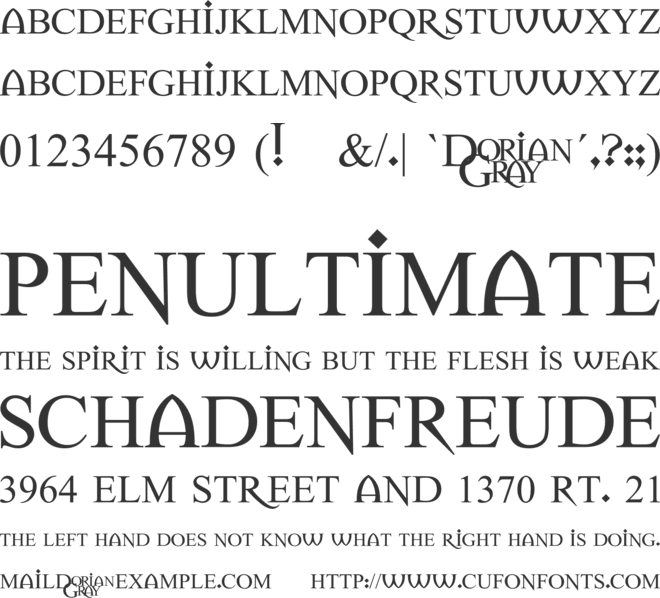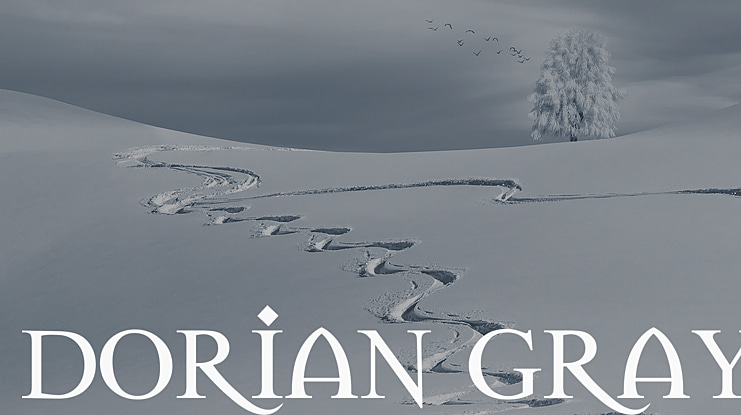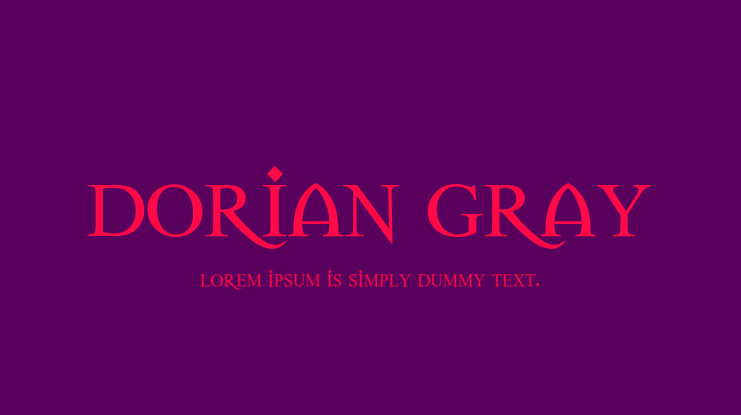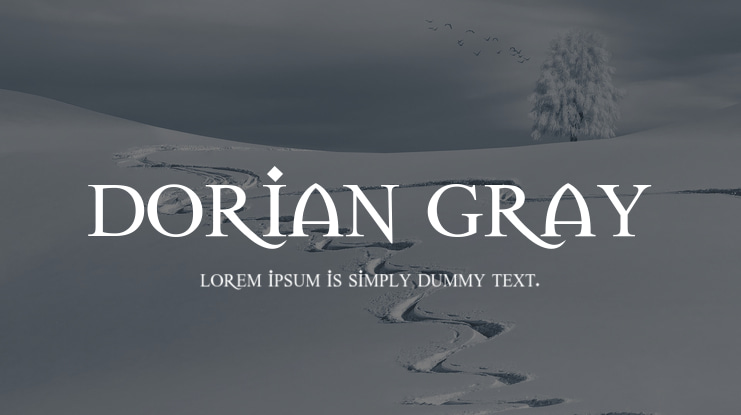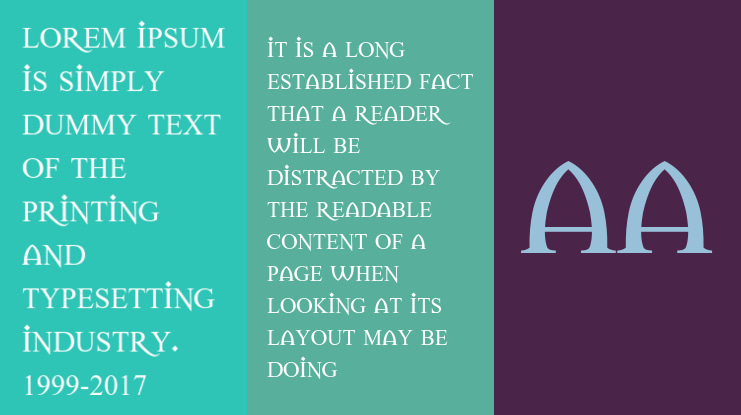
Dorian Gray Font
Directly from the film directed by Oliver Parker and starring Ben Barnes, the unpublished font for all admirers of the film.
Direttamente dal film diretto da Oliver Parker e interpretato da Ben Barnes, il font inedito per tutti gli estimatori del film.